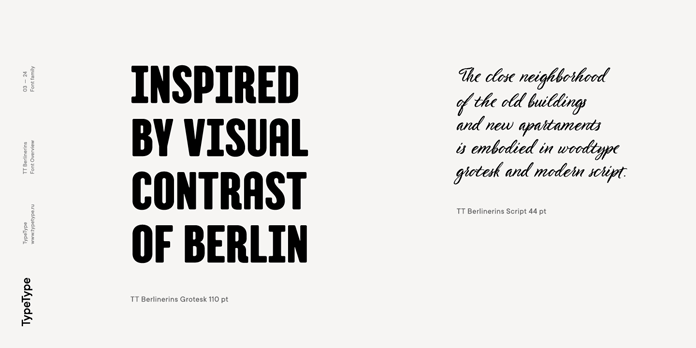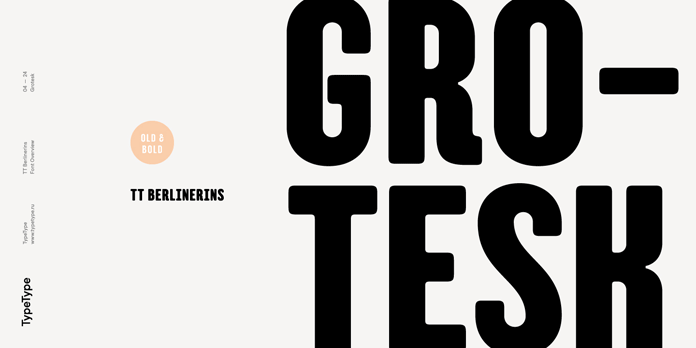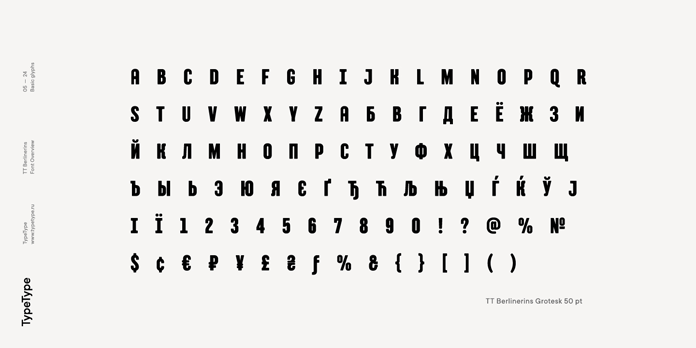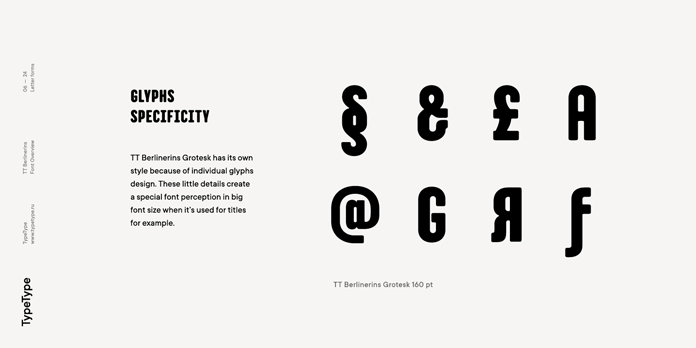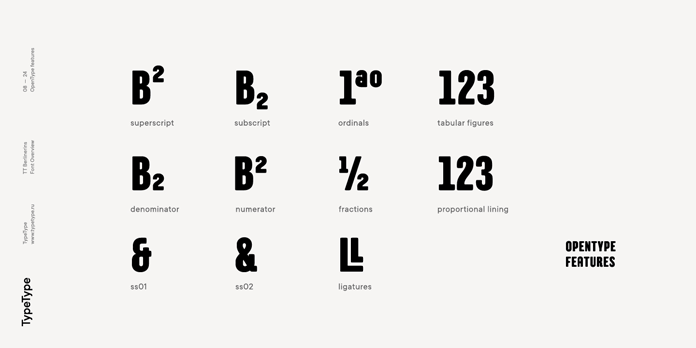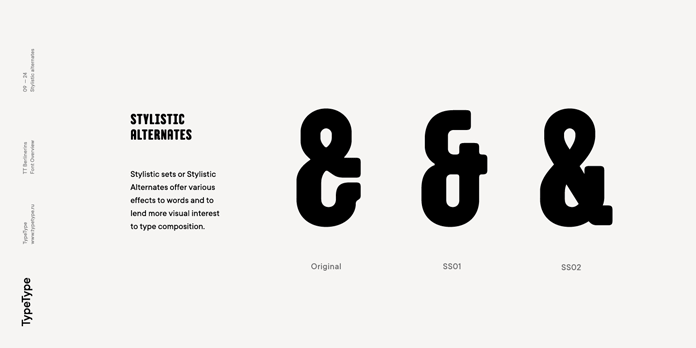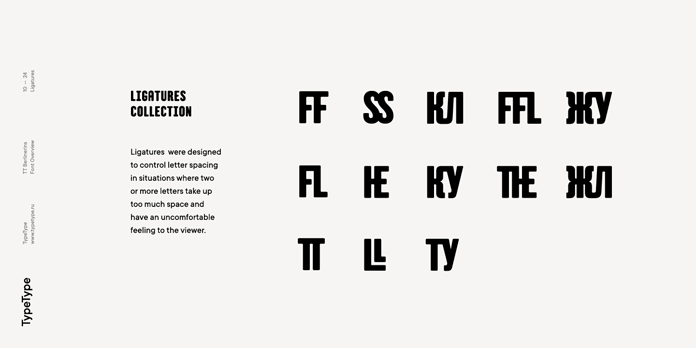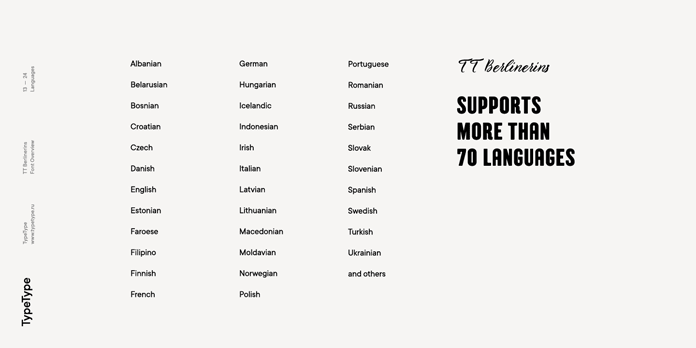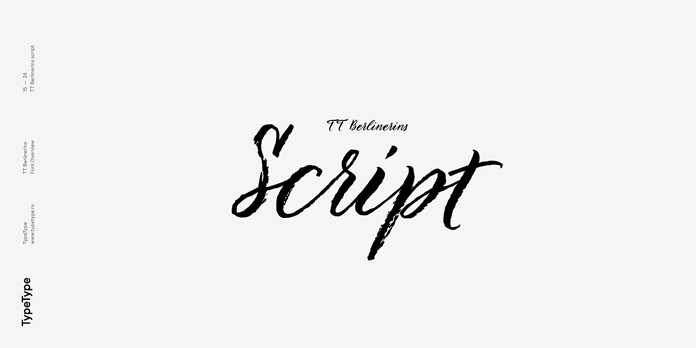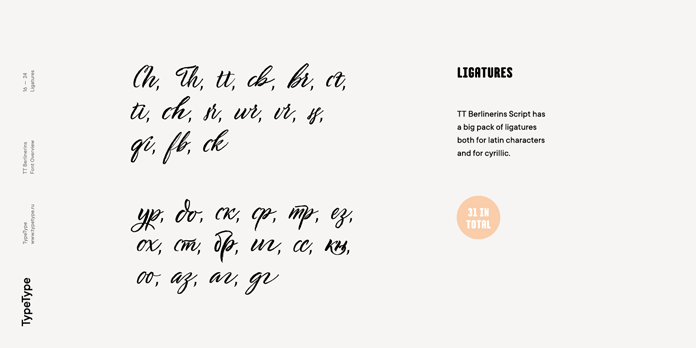
TT Berlinerins, a font duo consisting of a grotesk and script typeface published by foundry TypeType.
The TT Berlinerins font due draws inspiration from Berlin’s diversity. The sans-serif grotesk typeface refers to the historic component of the city, while the elegant script font symbolizes the Berlin of modern times. Both fonts are full of contrast just like the city itself. With 998 glyphs in total including 240 swashes, several ligatures, lots of OpenType features and multi language support, TT Berlinerins is well suited for a variety of typographic projects.
The grotesk typeface offers the look of a stylish wood-type sans-serif, while the elegant script version is based on a hand-drawn calligraphy style. To know more about this exceptional duo, just have a look at the following images. Please note, the typefaces are currently available as introductory offer on Fontspring.